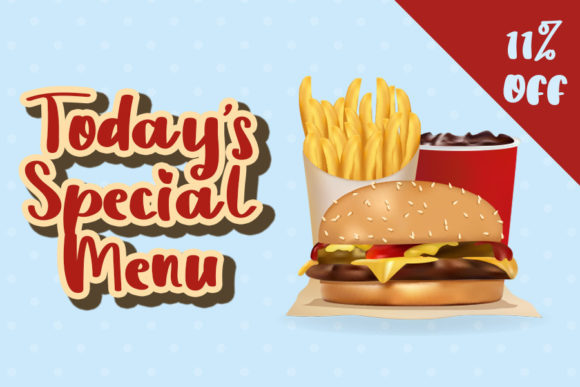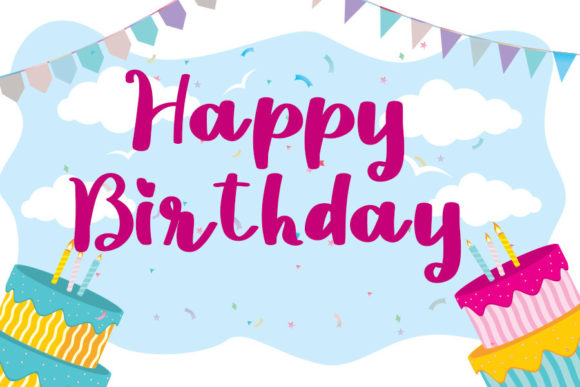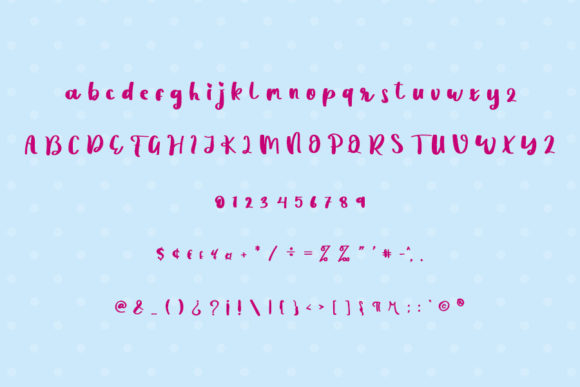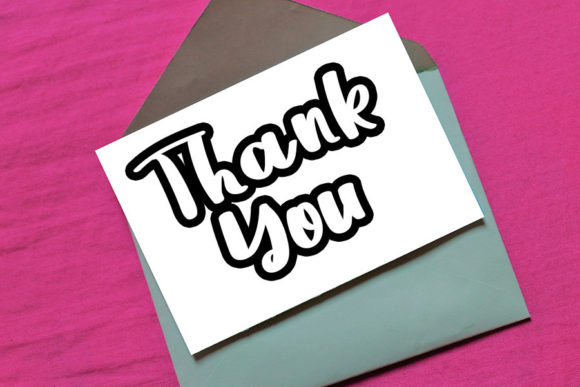
Daisy Fishing Font: The Sweet and Friendly Handwritten Font for Your Creative Projects
Are you a designer, crafter, or DIY enthusiast looking for a font that can add a touch of sweetness and friendliness to your projects? Look no further than the Daisy Fishing font! This beautiful handwritten font is perfect for a wide range of designs, from crafting and scrapbooking to branding and advertising. In this article, we’ll take a closer look at the Daisy Fishing font, its features, and how you can use it to take your creative projects to the next level.
What is Daisy Fishing Font?
Daisy Fishing is a sweet and friendly handwritten font that is designed to bring a touch of warmth and personality to your designs. Its natural and unique style makes it incredibly fitting to a large pool of designs, from feminine and playful to rustic and charming. The font’s creator has carefully crafted each letter to ensure that it is legible, yet playful and fun to use.
Key Features of Daisy Fishing Font
- Handwritten style: Daisy Fishing is a handwritten font that has a personal and friendly feel to it.
- Unique and natural style: The font’s unique style makes it stand out from other fonts, and its natural look and feel make it perfect for designs that require a personal touch.
- Legible and easy to read: Despite its playful style, Daisy Fishing is easy to read and understand, making it perfect for use in a wide range of designs.
- Versatile: This font can be used in a variety of designs, from crafting and scrapbooking to branding and advertising.
How to Use Daisy Fishing Font in Your Designs
Daisy Fishing font is incredibly versatile and can be used in a wide range of designs. Here are a few ideas to get you started:
- Crafting and scrapbooking: Use Daisy Fishing to add a personal touch to your scrapbook pages, cards, and other craft projects.
- Branding and advertising: This font is perfect for creating logos, business cards, and other marketing materials that require a friendly and approachable feel.
- Wedding and party decor: Use Daisy Fishing to create beautiful wedding invitations, party decorations, and other celebratory materials.
- Social media graphics: This font is perfect for creating social media graphics, such as Facebook posts, Instagram stories, and Pinterest pins.
Tips for Using Daisy Fishing Font Effectively
Here are a few tips to help you get the most out of Daisy Fishing font:
- Use it with images: Daisy Fishing font looks beautiful when paired with images, especially those with a natural or rustic feel.
- Experiment with colors: This font looks great in a variety of colors, so don’t be afraid to experiment and find the perfect color scheme for your design.
- Mix and match with other fonts: Daisy Fishing font can be paired with other fonts to create a unique and interesting look.
Daisy Fishing font is a beautiful and versatile handwritten font that is perfect for designers, crafters, and DIY enthusiasts. Its sweet and friendly style makes it incredibly fitting to a large pool of designs, and its natural and unique look and feel make it stand out from other fonts. With its legibility, ease of use, and versatility, Daisy Fishing font is a must-have for anyone looking to add a personal touch to their creative projects. So why wait? Download Daisy Fishing font today and start creating beautiful designs that will capture the hearts of your audience!